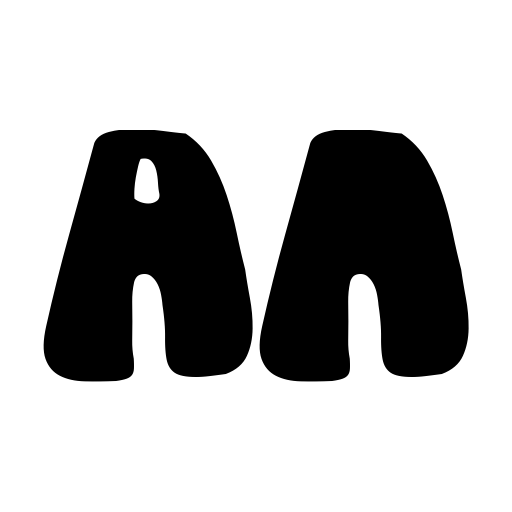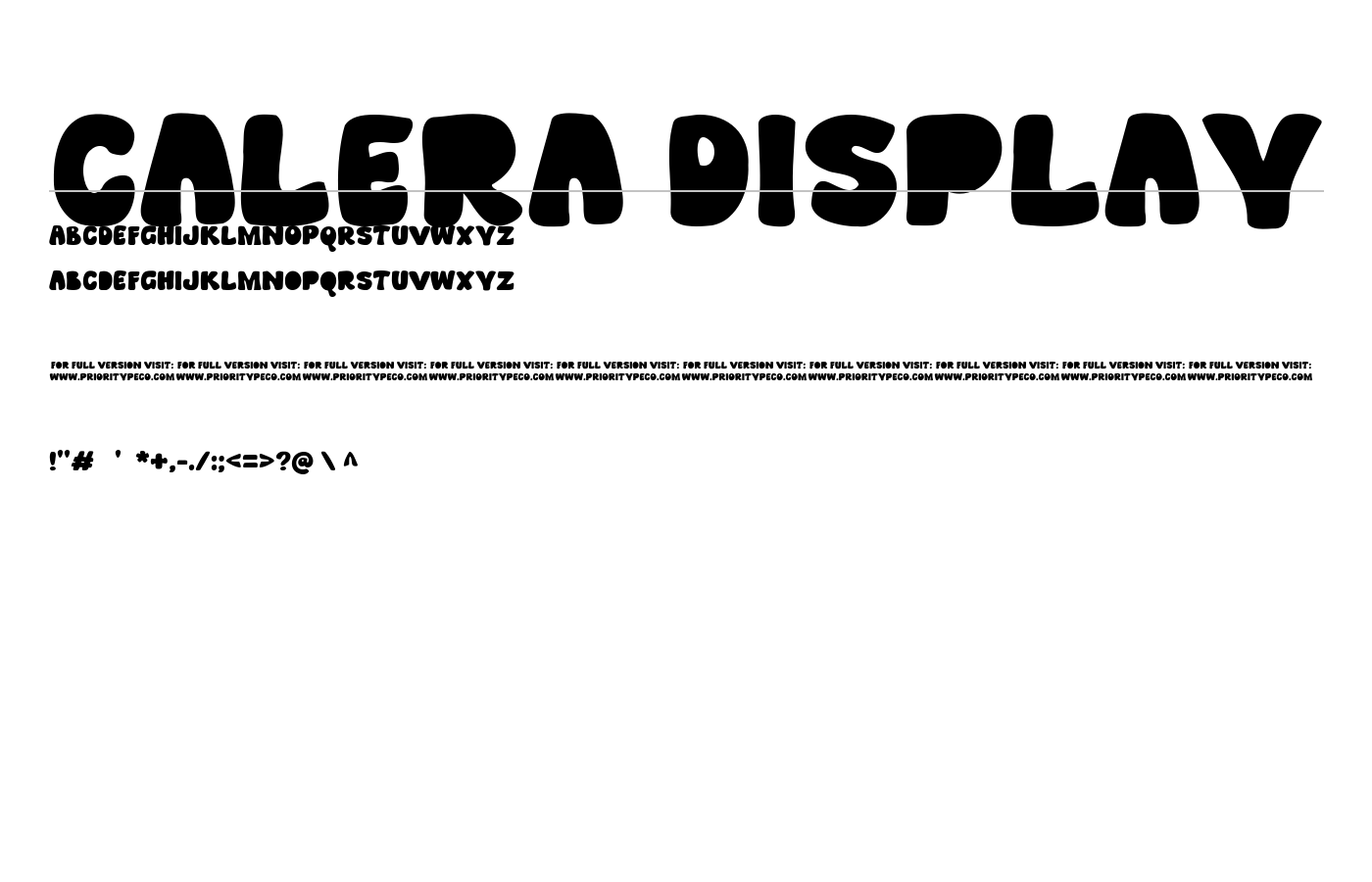
Calera Display is a bold, playful sans-serif font with a chunky, rounded style that gives it a friendly and approachable feel. Its thick, irregular letterforms and tight spacing make it ideal for eye-catching headlines and creative branding, adding a fun and casual vibe to any design. This font works well for posters, logos, and children’s products where a strong, informal personality is desired.
Calera Display Font
About Calera Display Font
| Font family | Calera Display Font |
| Designer | Prio Nurokhim Aji |